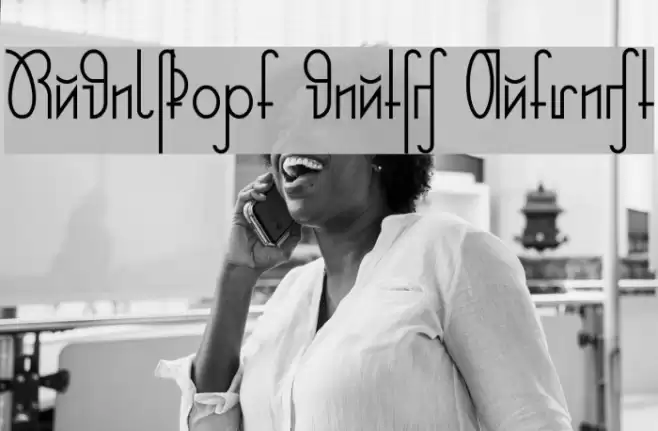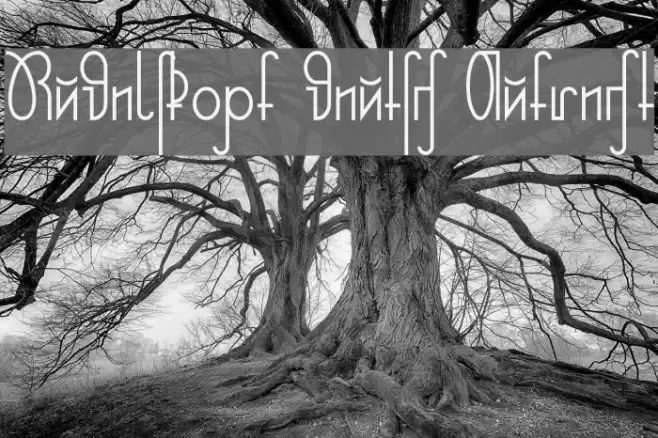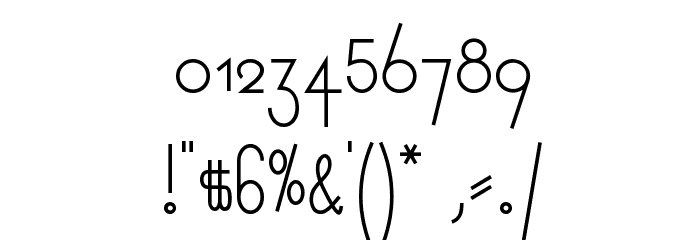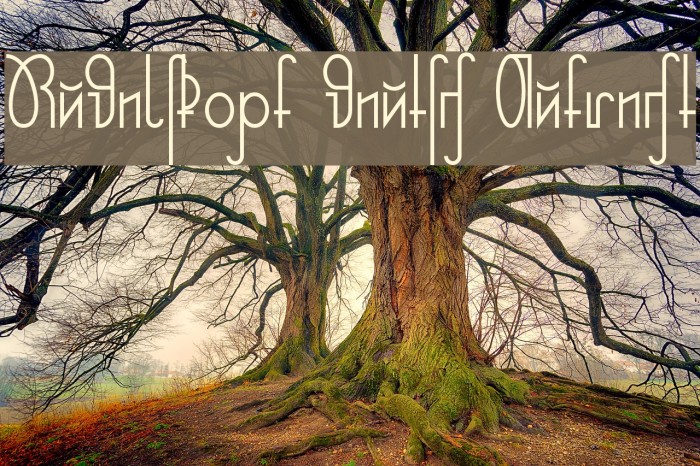
Rudelskopf deutsch Aufrecht Font
Rudelskopf deutsch Aufrecht Description
This font features a unique and artistic design with elongated, curved strokes that create a sense of fluidity and movement. The characters are tall and narrow, with a distinctive flair that gives them an ornamental quality. The uppercase letters have a striking presence, while the lowercase letters maintain a consistent style that complements the overall aesthetic. The numerals and special characters are designed to match the elegance of the alphabet, making this font suitable for creative and decorative purposes.
An artistic and ornamental font with elongated, curved strokes and a fluid design from Crazy fonts.